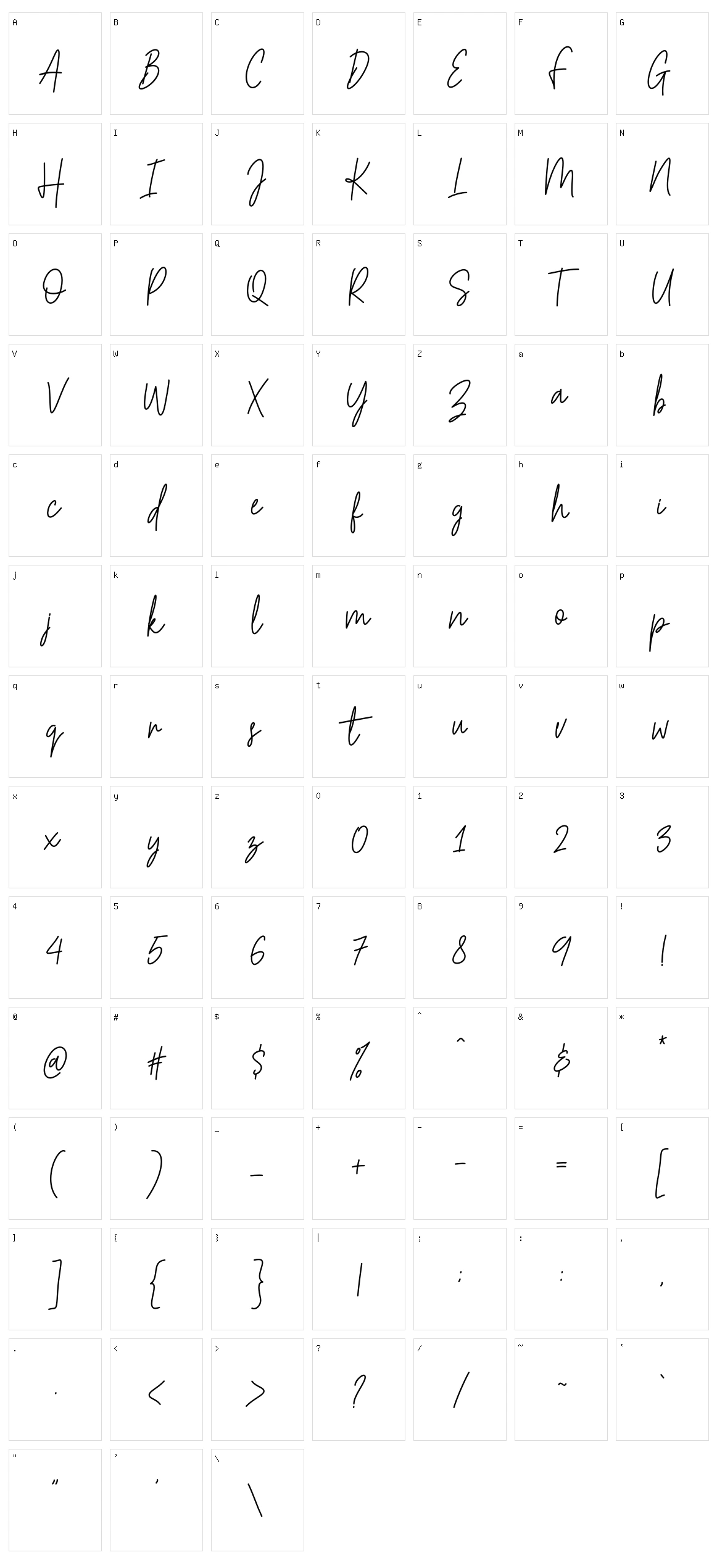
Hesterica is a clean, bouncy, beautiful font, simple and funny.
Hesterica can be incorporated into many designs including quotes text, wedding invitations, posters and you can create custom cards to give to your friends and family.